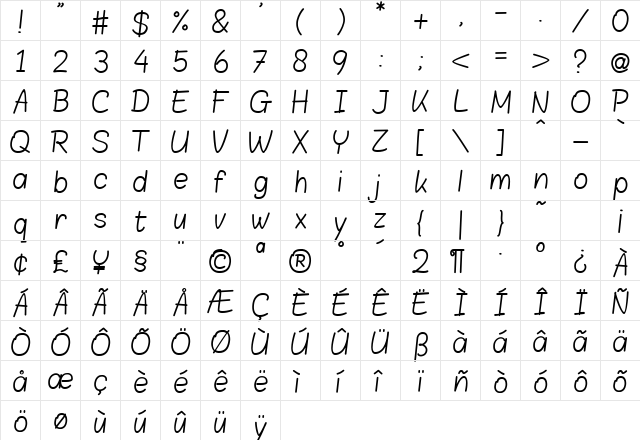
Blokletters Balpen Balpen
Design Context for Blokletters Balpen Typeface
Blokletters Balpen offers clean, dependable letterforms without strong stylistic allegiance, making it a practical choice for designers who need flexibility.